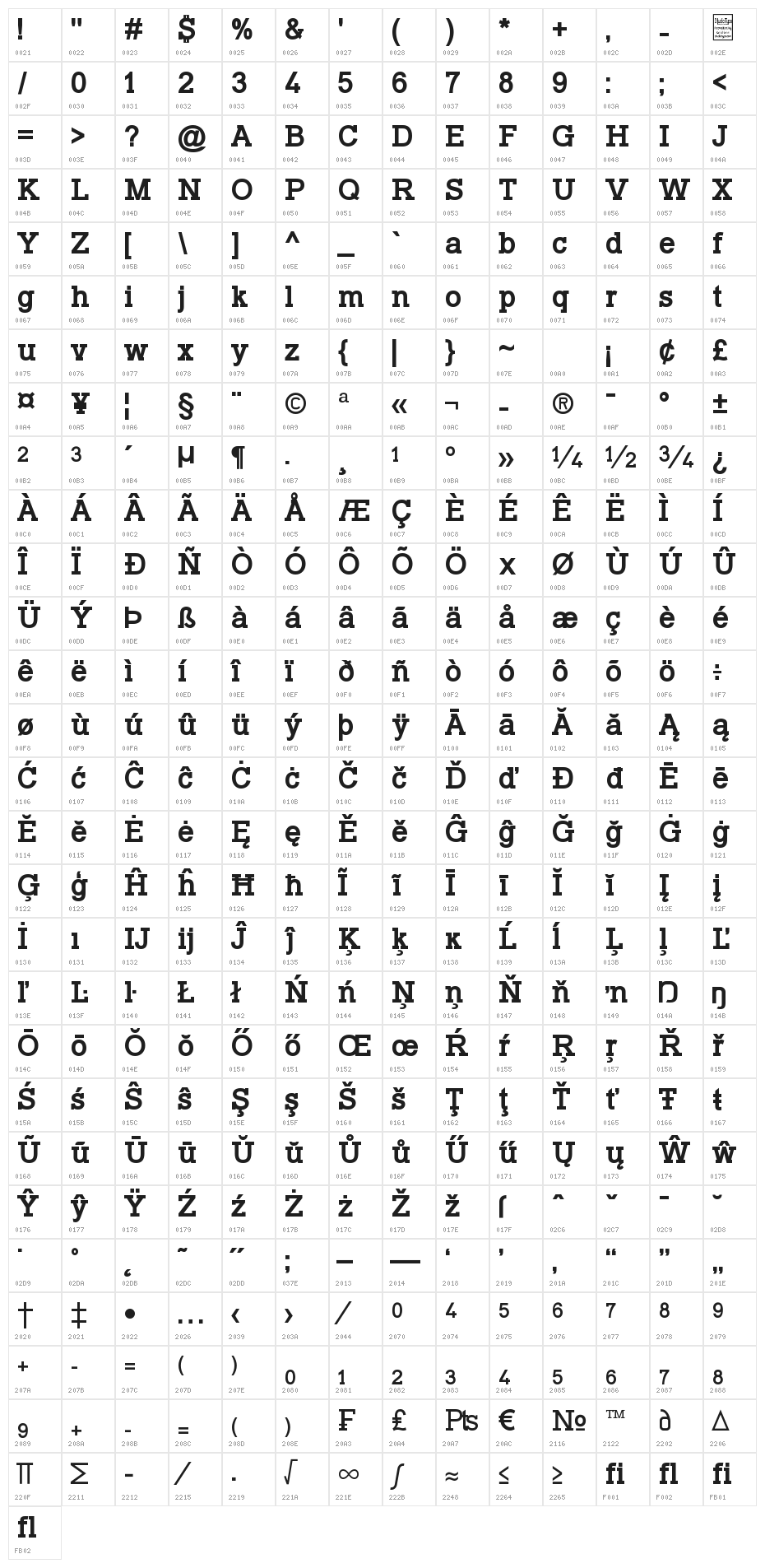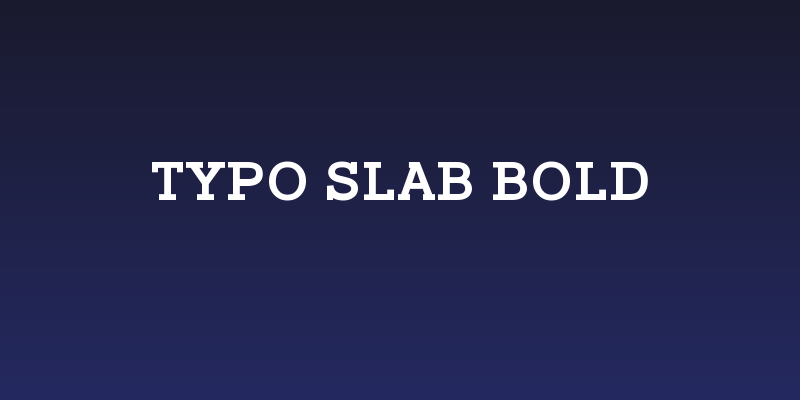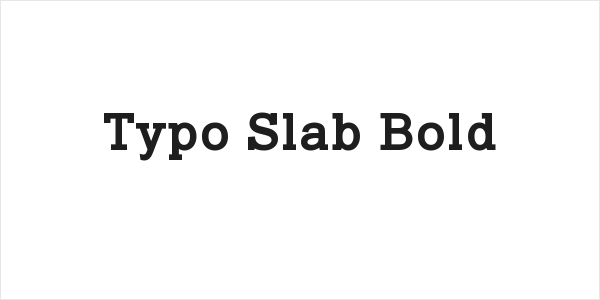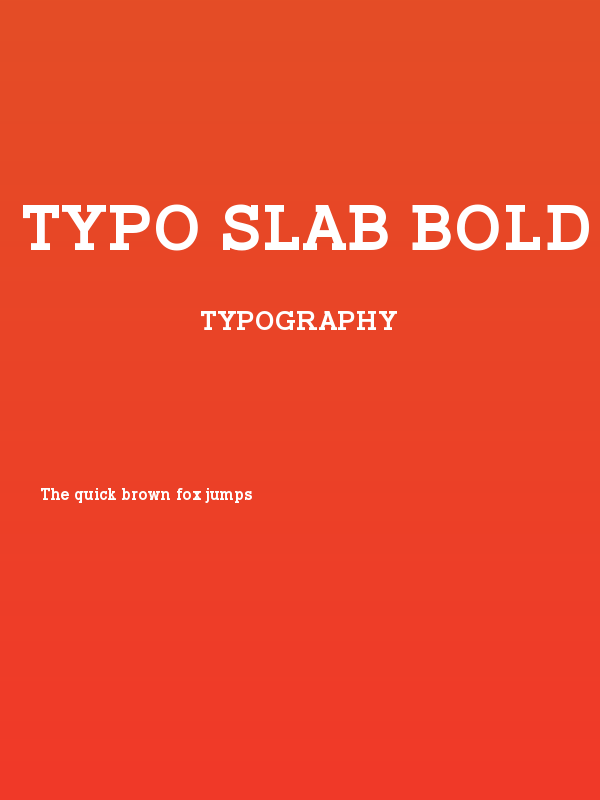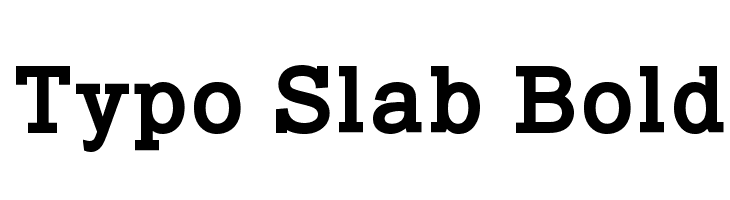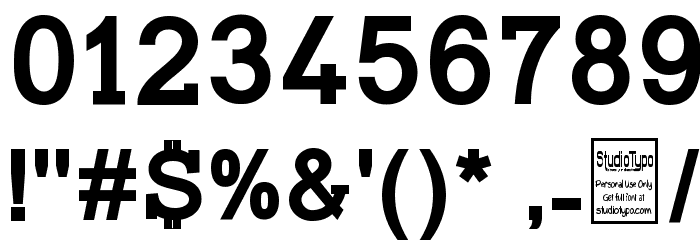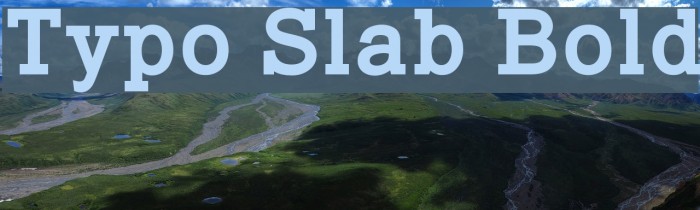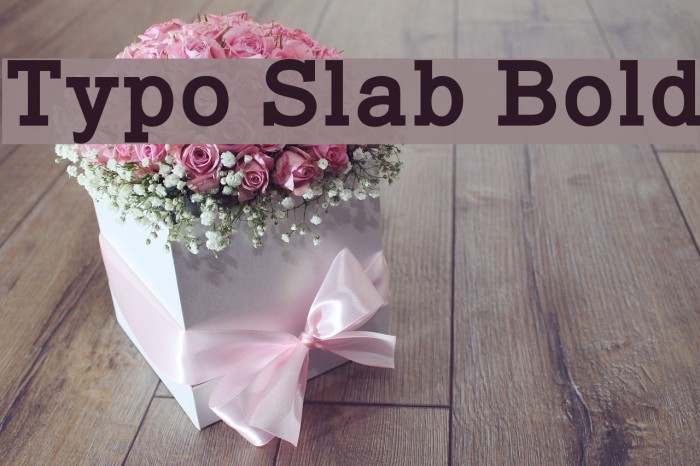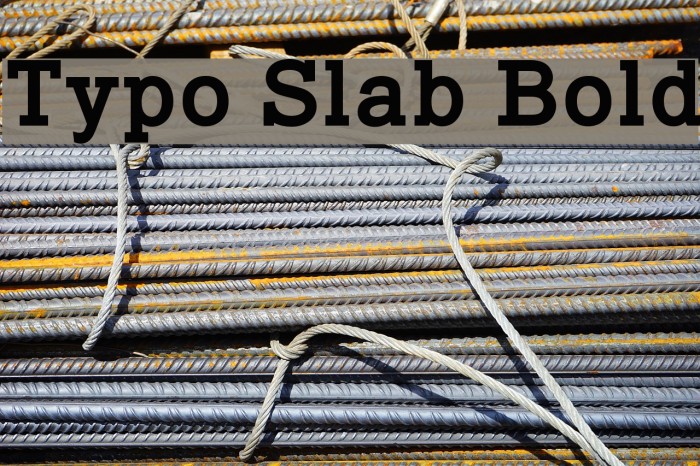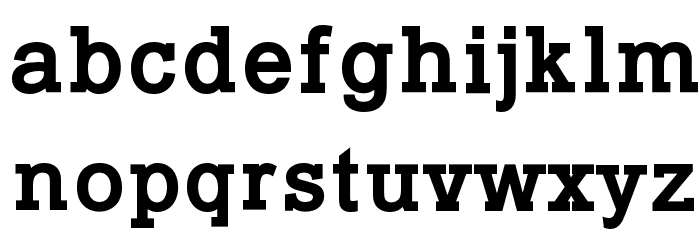
Typo Slab Bold Font
Typo Slab Bold Description
This font features a robust and bold slab serif style, characterized by thick, block-like serifs that give it a strong and authoritative presence. The uppercase letters are uniform and balanced, while the lowercase letters maintain a consistent weight, providing a harmonious look across different text sizes. The numerals are clear and easily distinguishable, making them suitable for various applications. Special characters are well-defined, ensuring versatility in design projects. The overall design is modern yet retains a classic touch, making it suitable for both contemporary and traditional uses.
| Proposed Projects | Ideal for headlines, posters, branding, and editorial design where a strong, impactful presence is needed. |